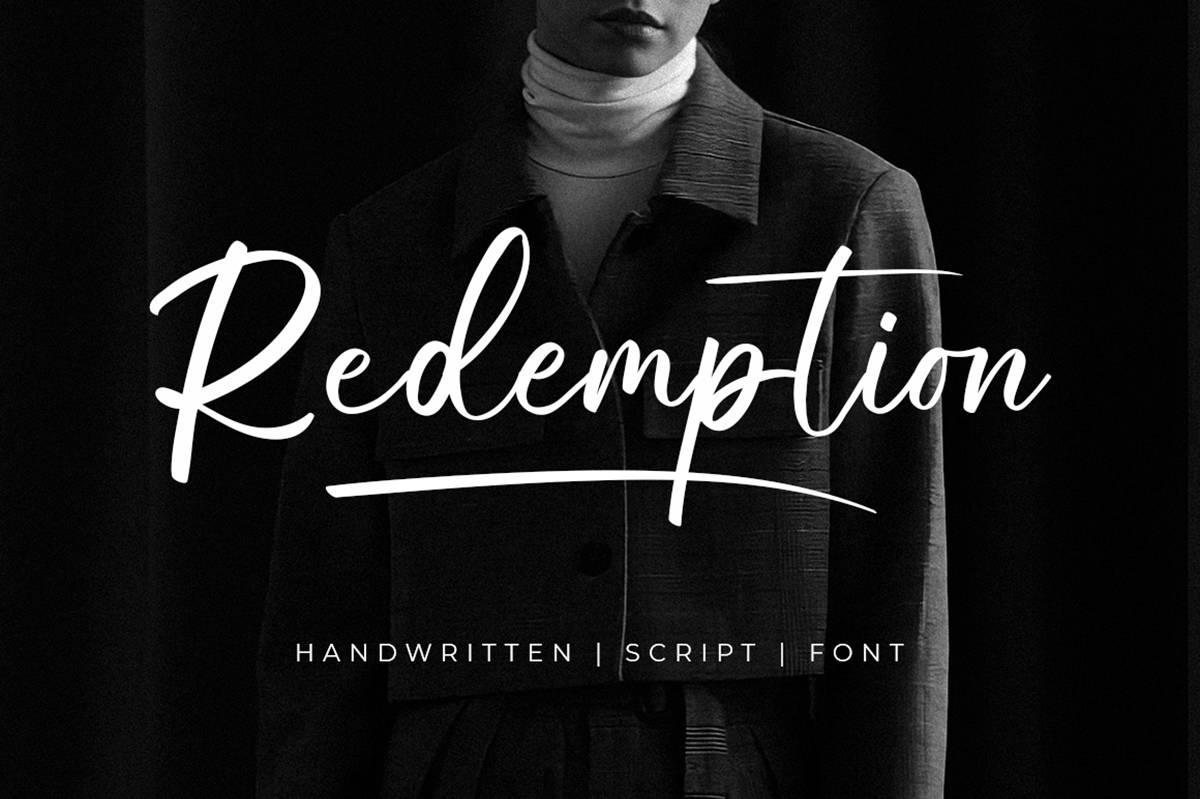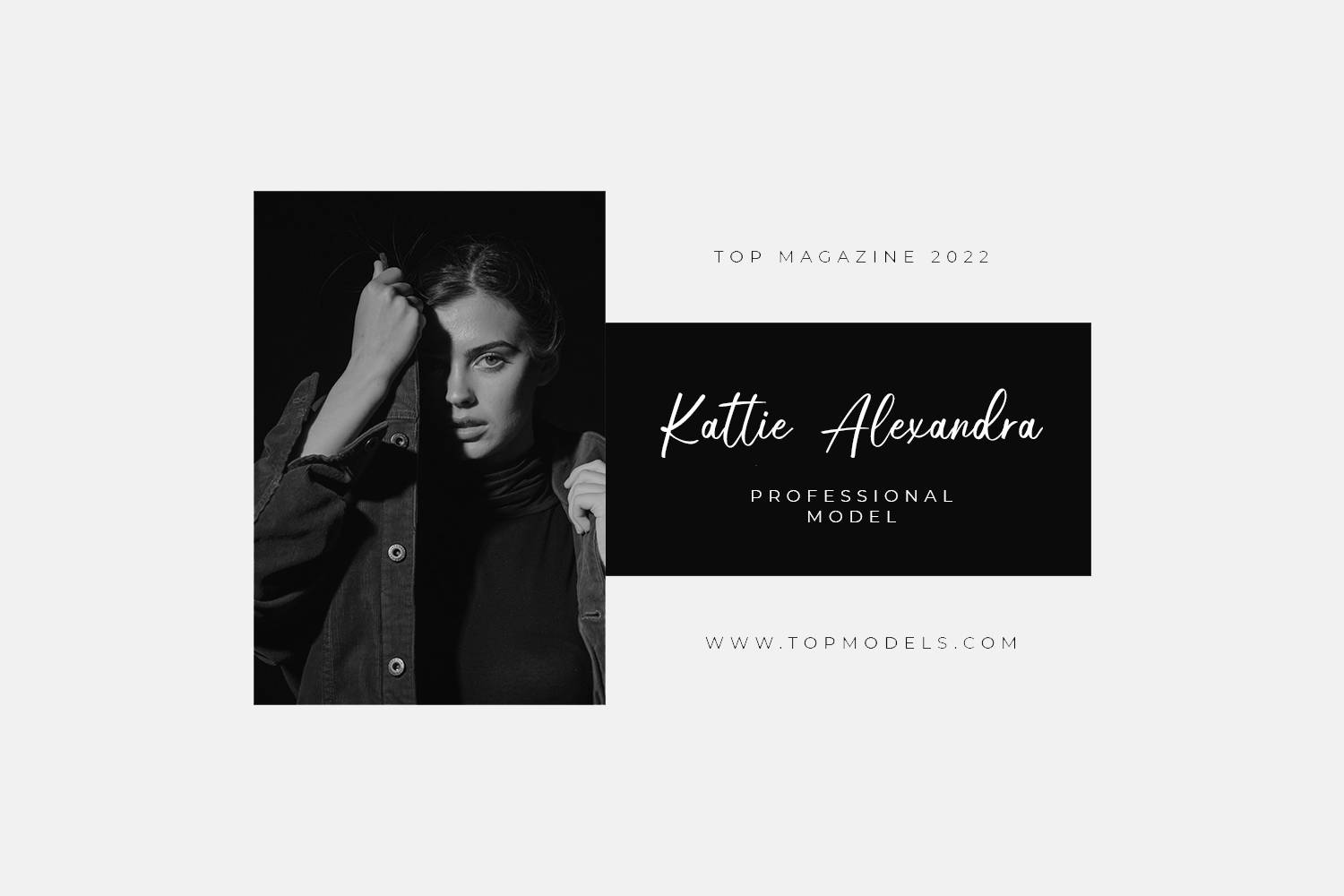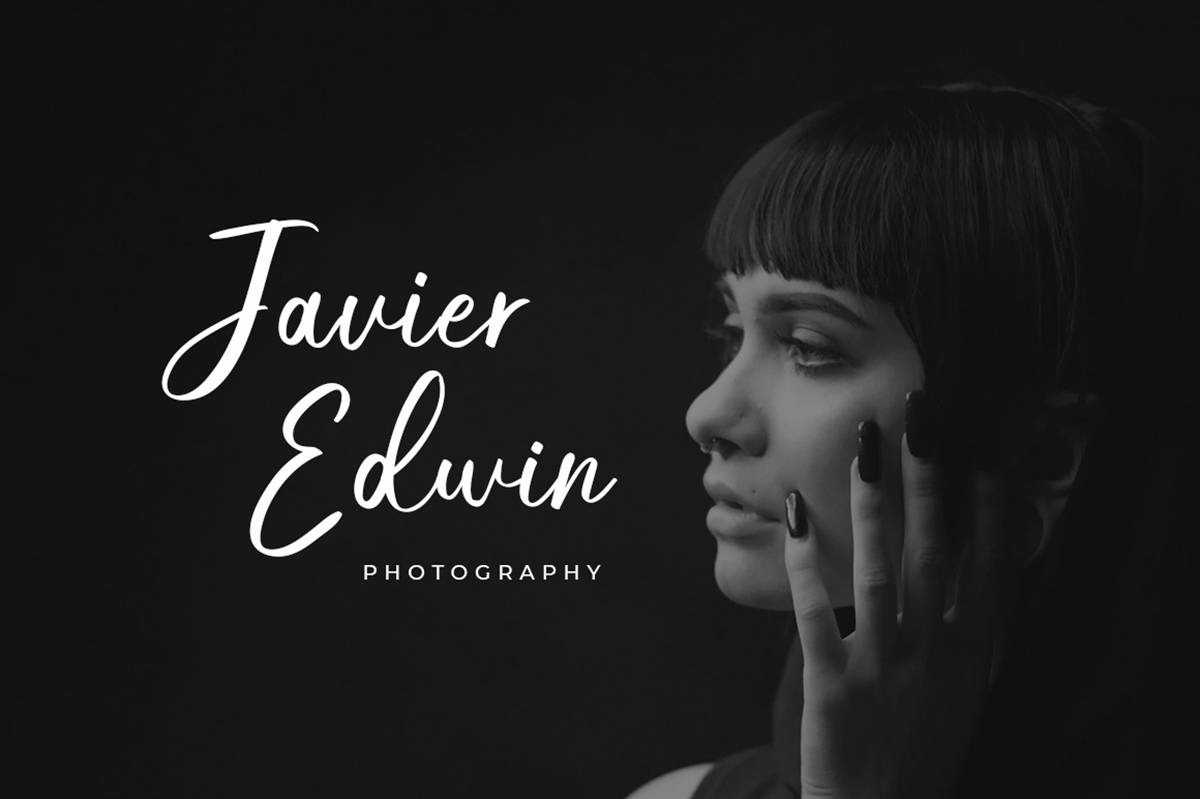
Redemption is a graceful script font featuring elegant, flowing strokes with a handwritten feel. Its slender, slightly slanted letterforms offer a refined and personal touch, making it ideal for creative branding, invitations, and stylish headlines where a warm, approachable appearance is desired. This font works beautifully in designs that seek to convey sophistication with a hint of casual charm.
Redemption Font
About Redemption Font